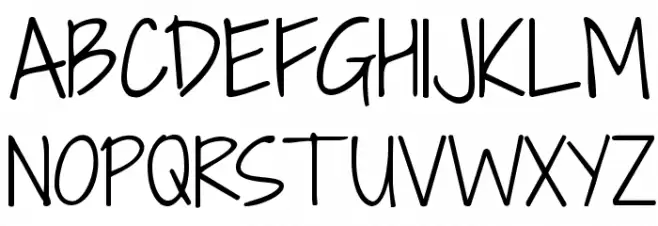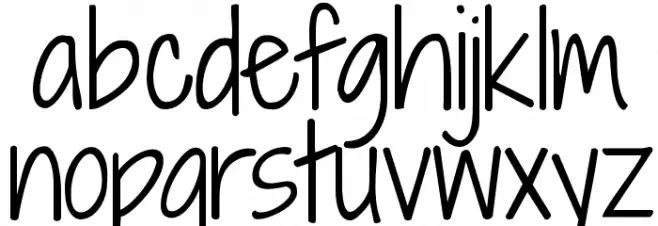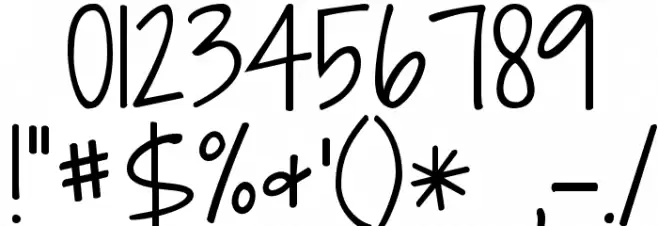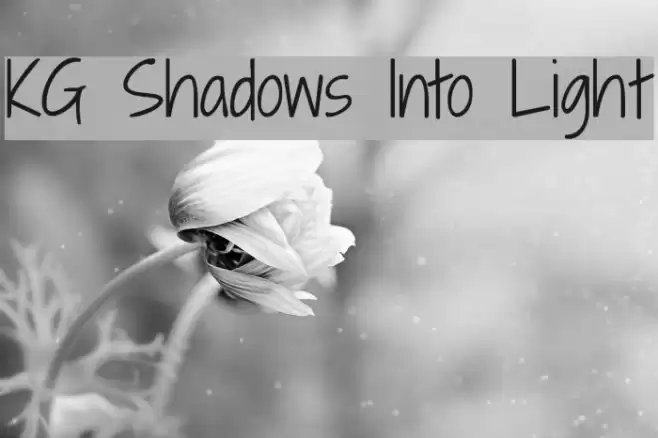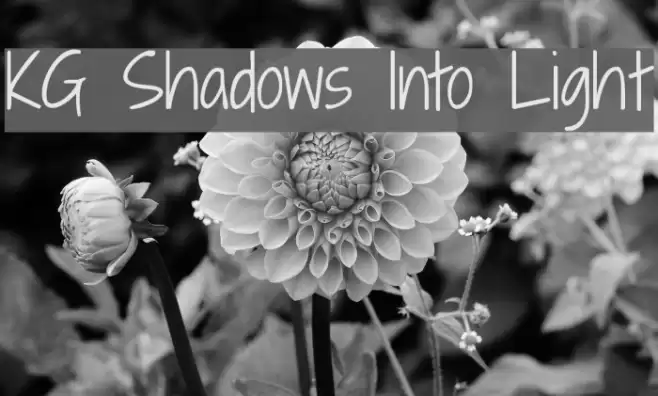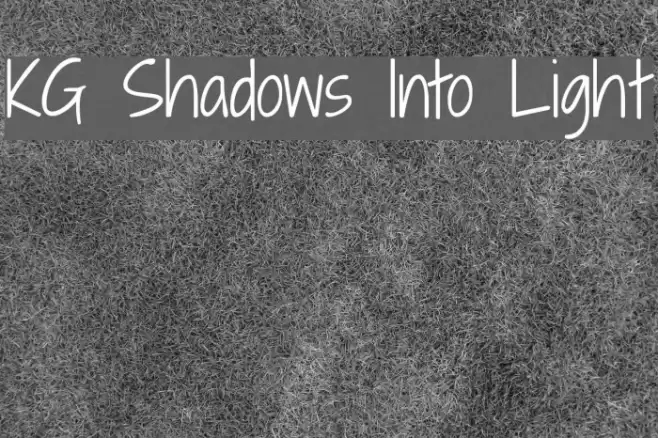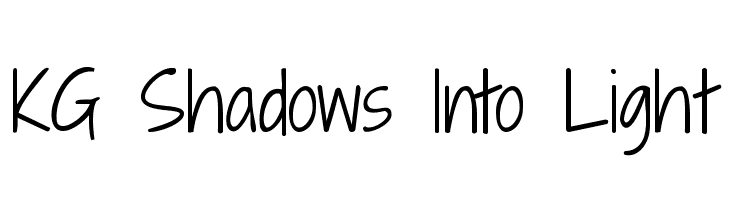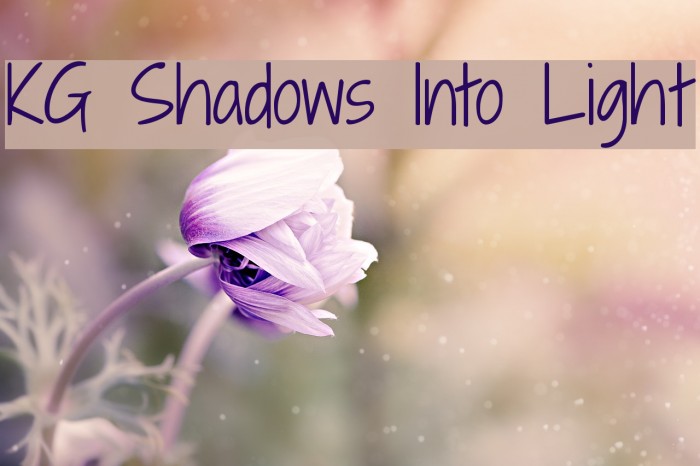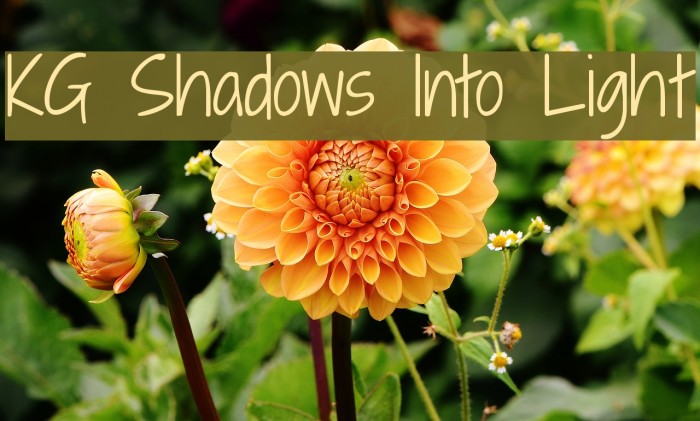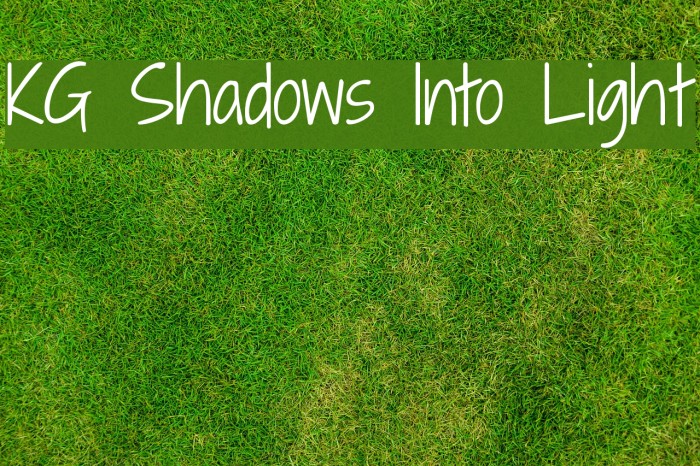
KG Shadows Into Light
This font features a casual, handwritten style that exudes a friendly and approachable vibe. The letters are slightly slanted, giving it a dynamic and lively appearance. The strokes are consistent in width, maintaining a uniform look throughout. The characters are well-spaced, ensuring readability while retaining a playful touch. This font is versatile, suitable for both informal and professional settings where a personal touch is desired. Its simplicity and clarity make it ideal for a variety of applications, from digital to print media.
A casual, handwritten font with a friendly and approachable style.
- Proposed Projects: Ideal for greeting cards, personal blogs, informal presentations, and educational materials.
- Overall Style: Casual
- Use Case: Headlines, Informal text, Personal projects